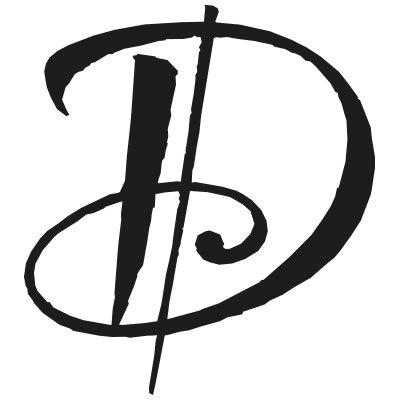
Fonts made for a use in larger sizes and short passages (e.g. in logos, headlines), but not for longer texts. Not to be confused with fonts made for screen use (e.g. on electronic “displays”).
French: caractère de titrage
German: Schau[größen]schrift
Italian: [Carattere] Fantasia
Polish: czcionka afiszowa
Spanish: Fuente decorativa